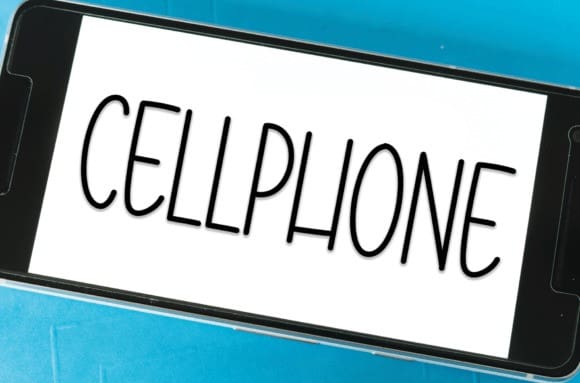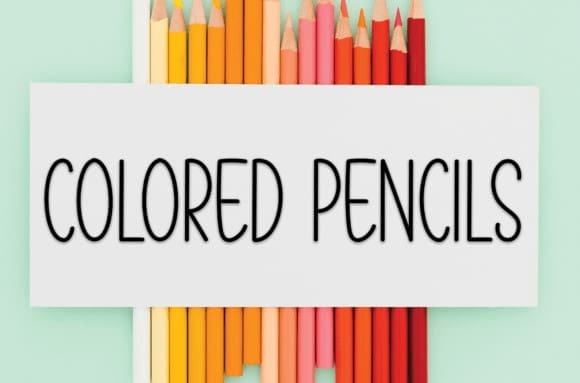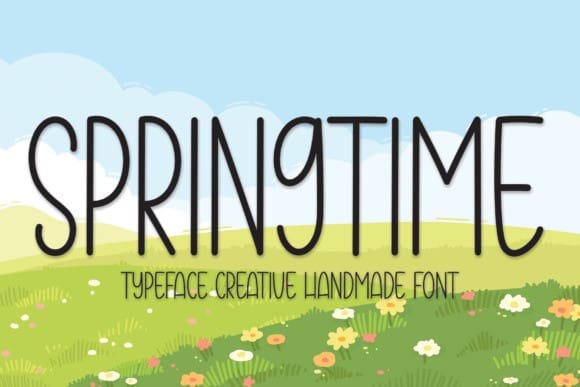
Springtime Hand Font
Springtime Hand Font is a sweet and friendly handwritten display font. Cute and fun, this font is ideal for writing wedding invitations, cards, or any other design that might need a fun touch!